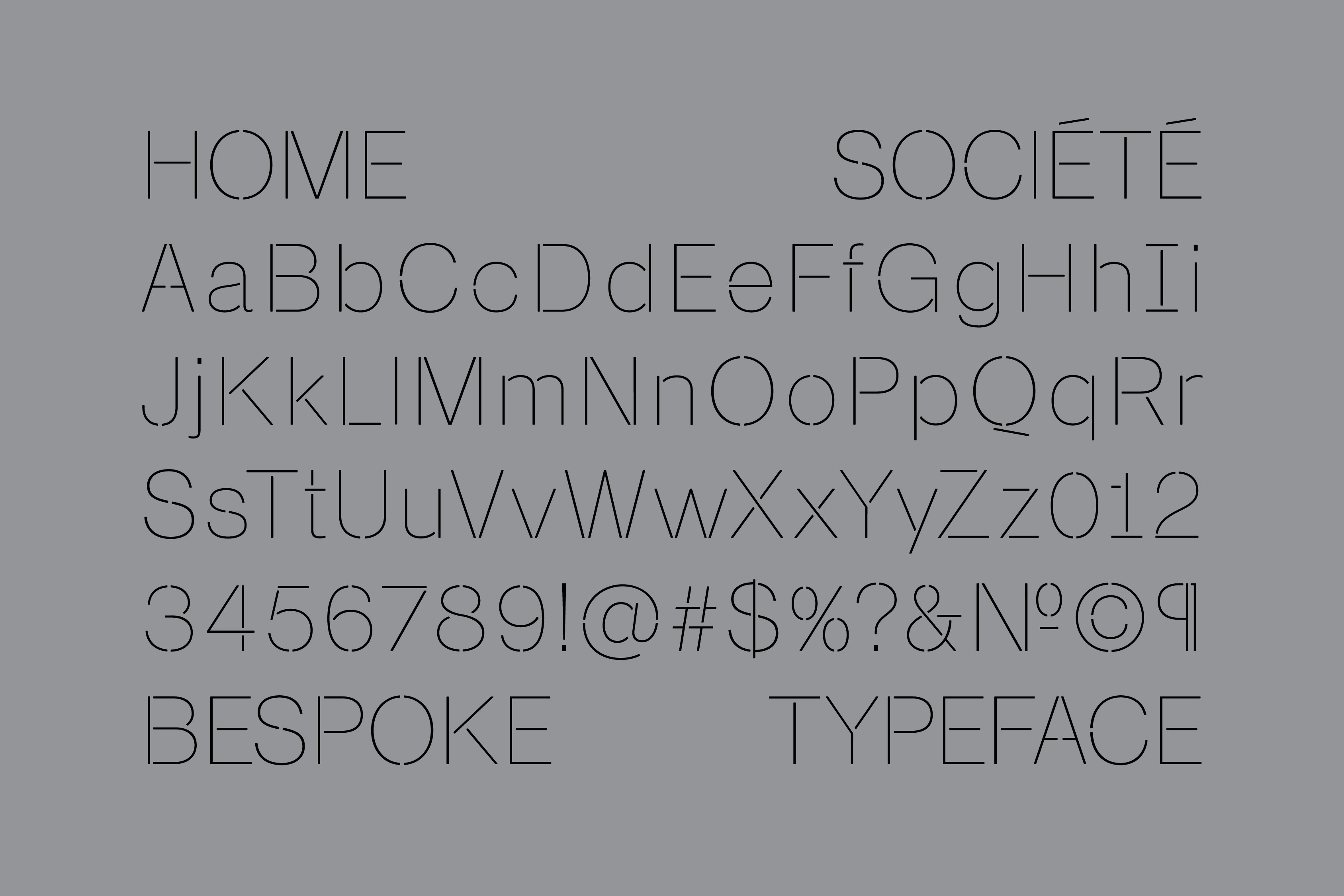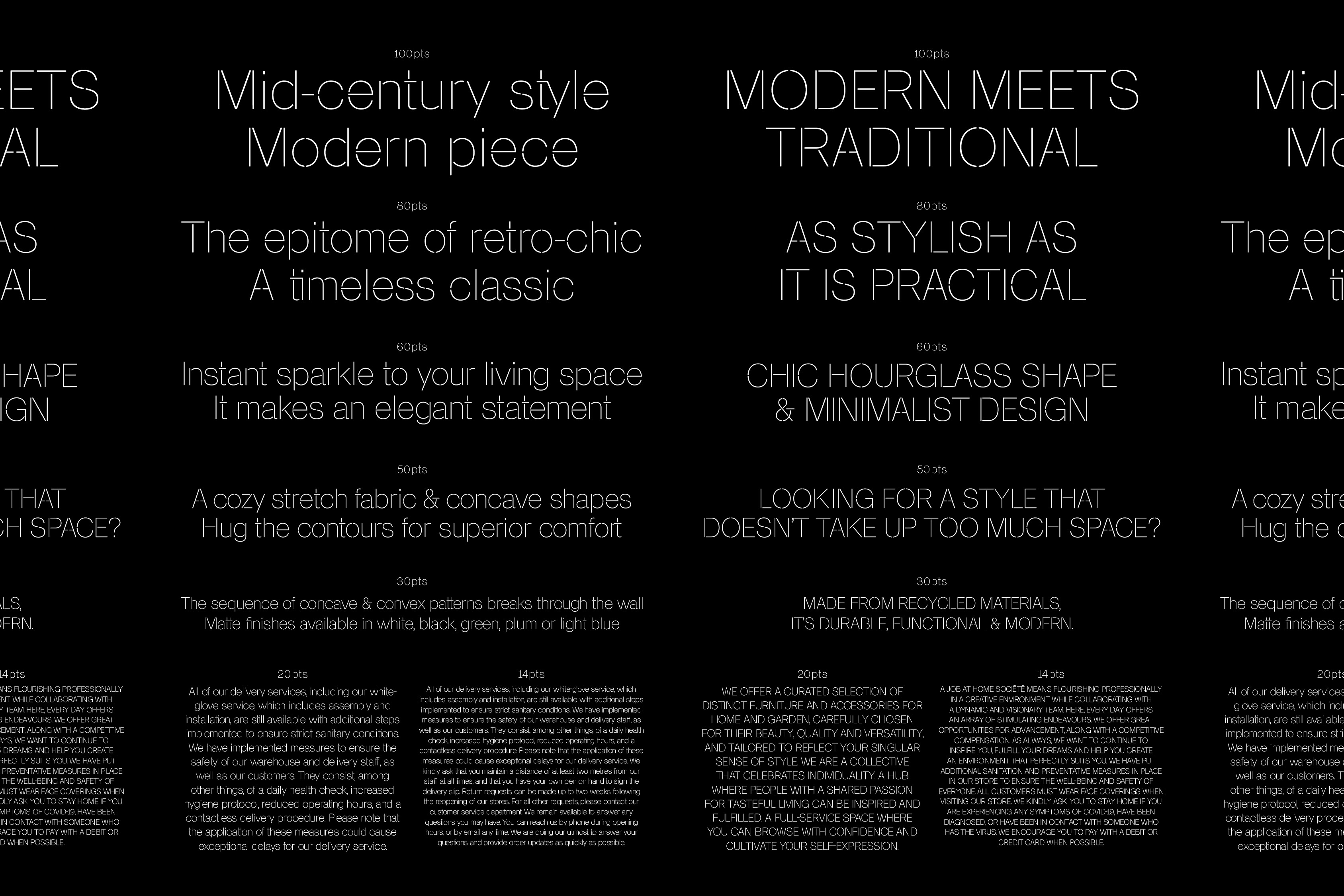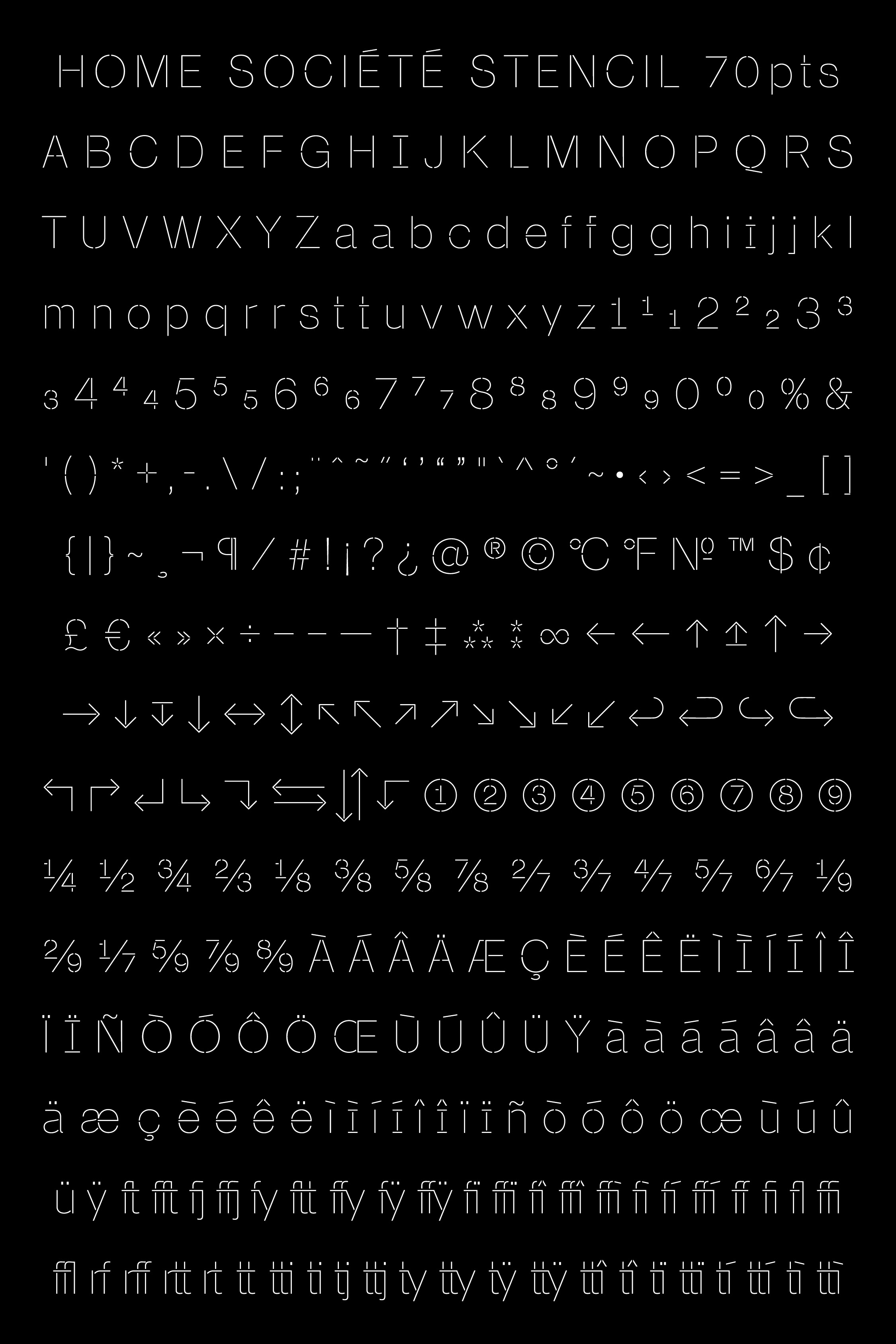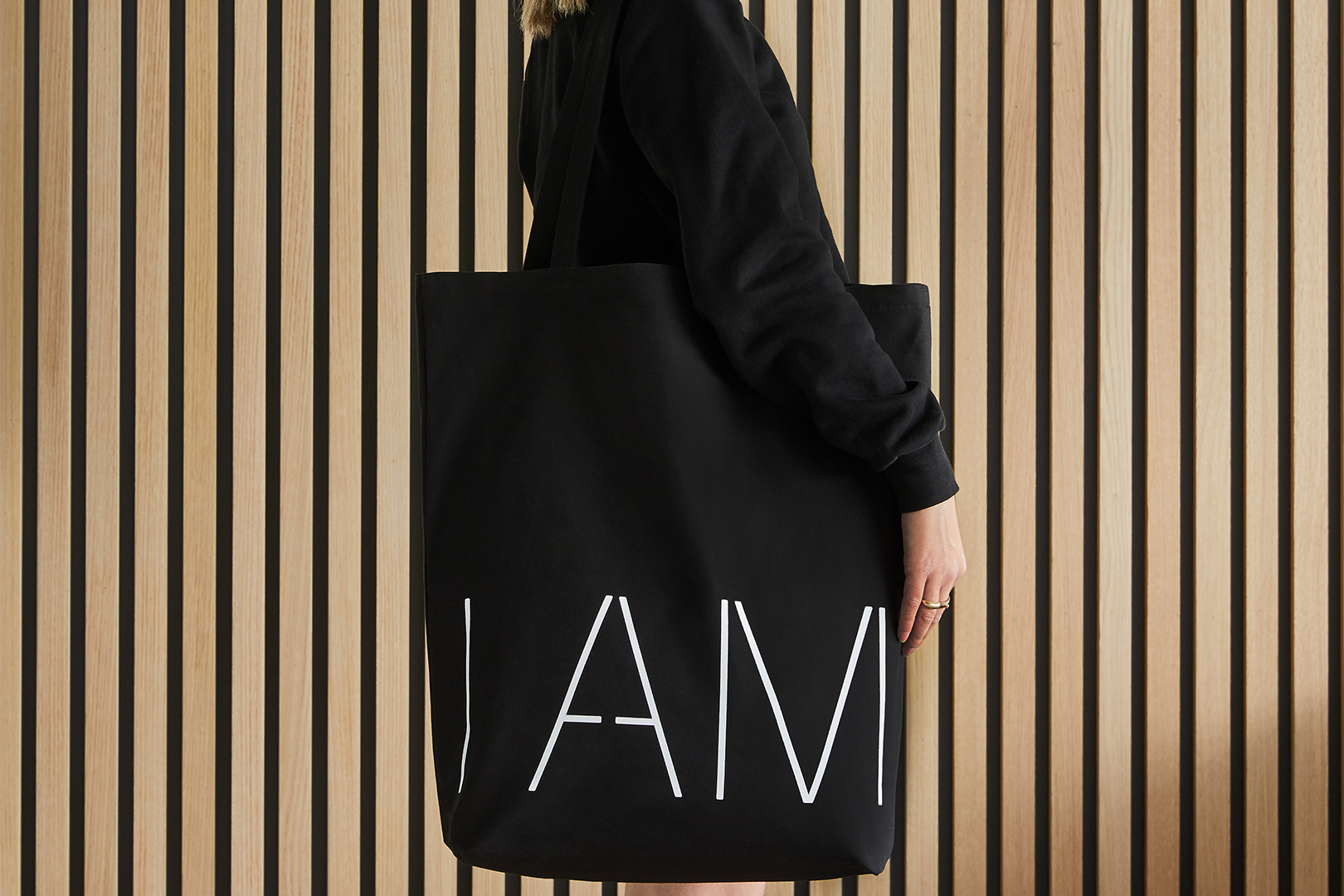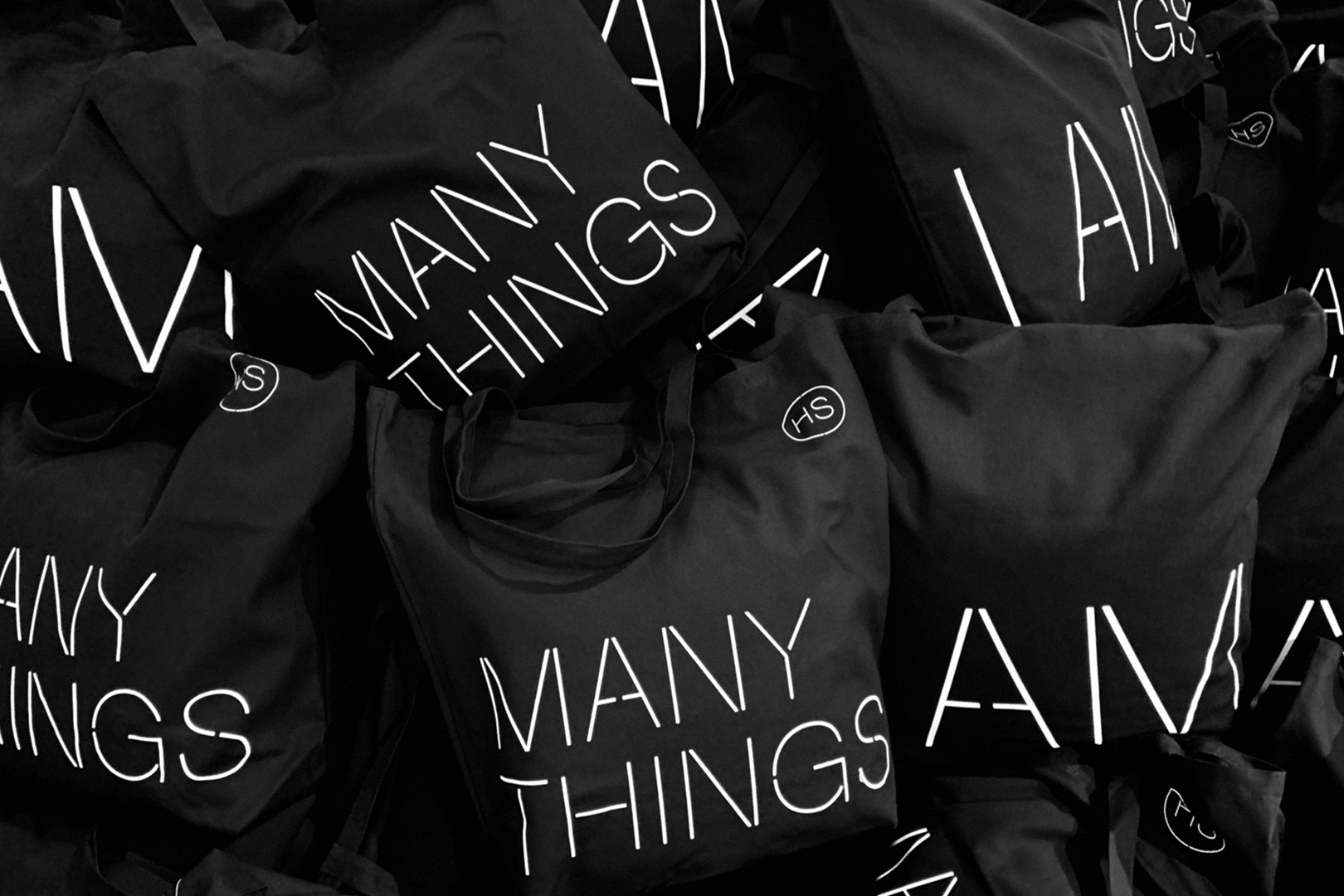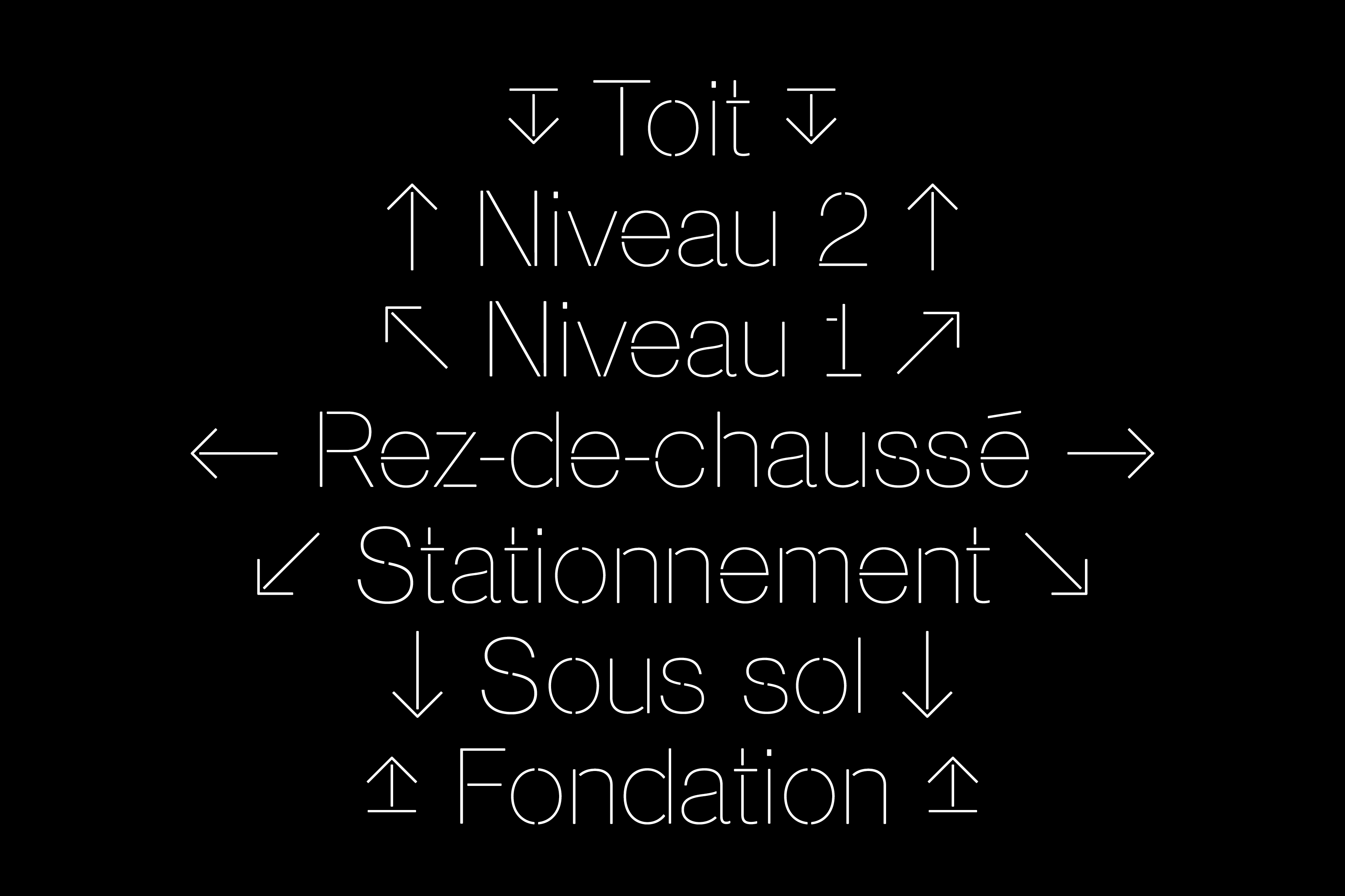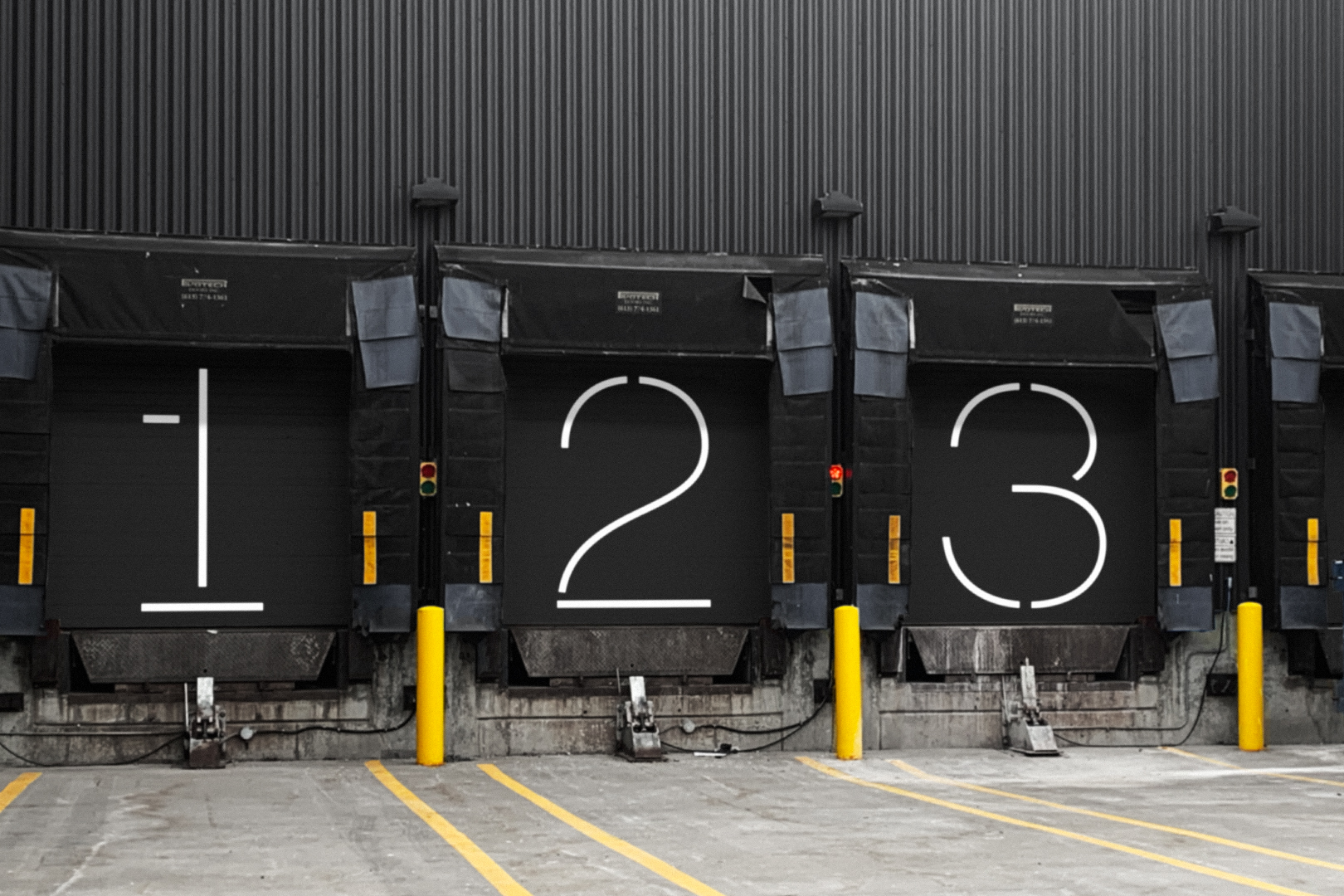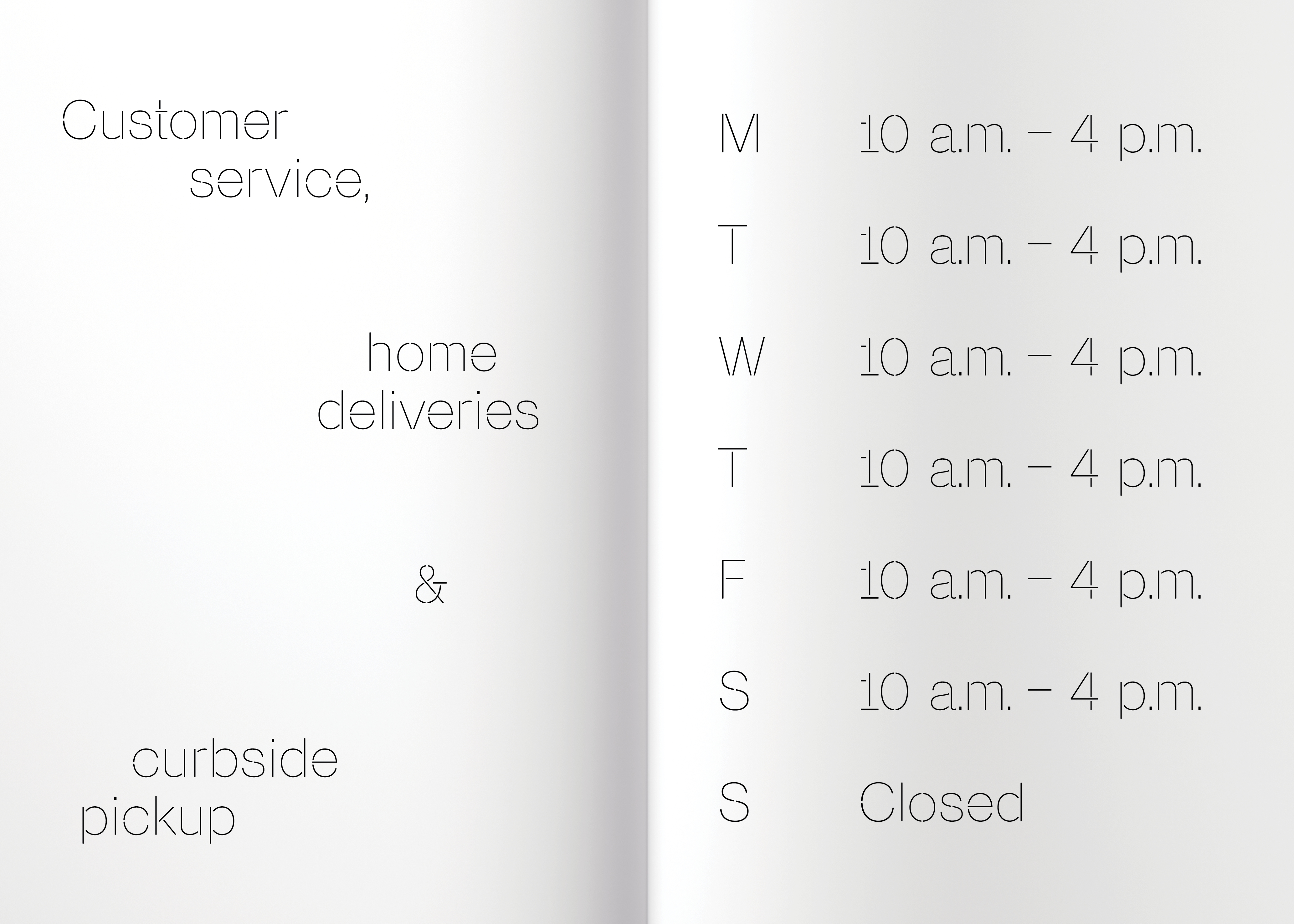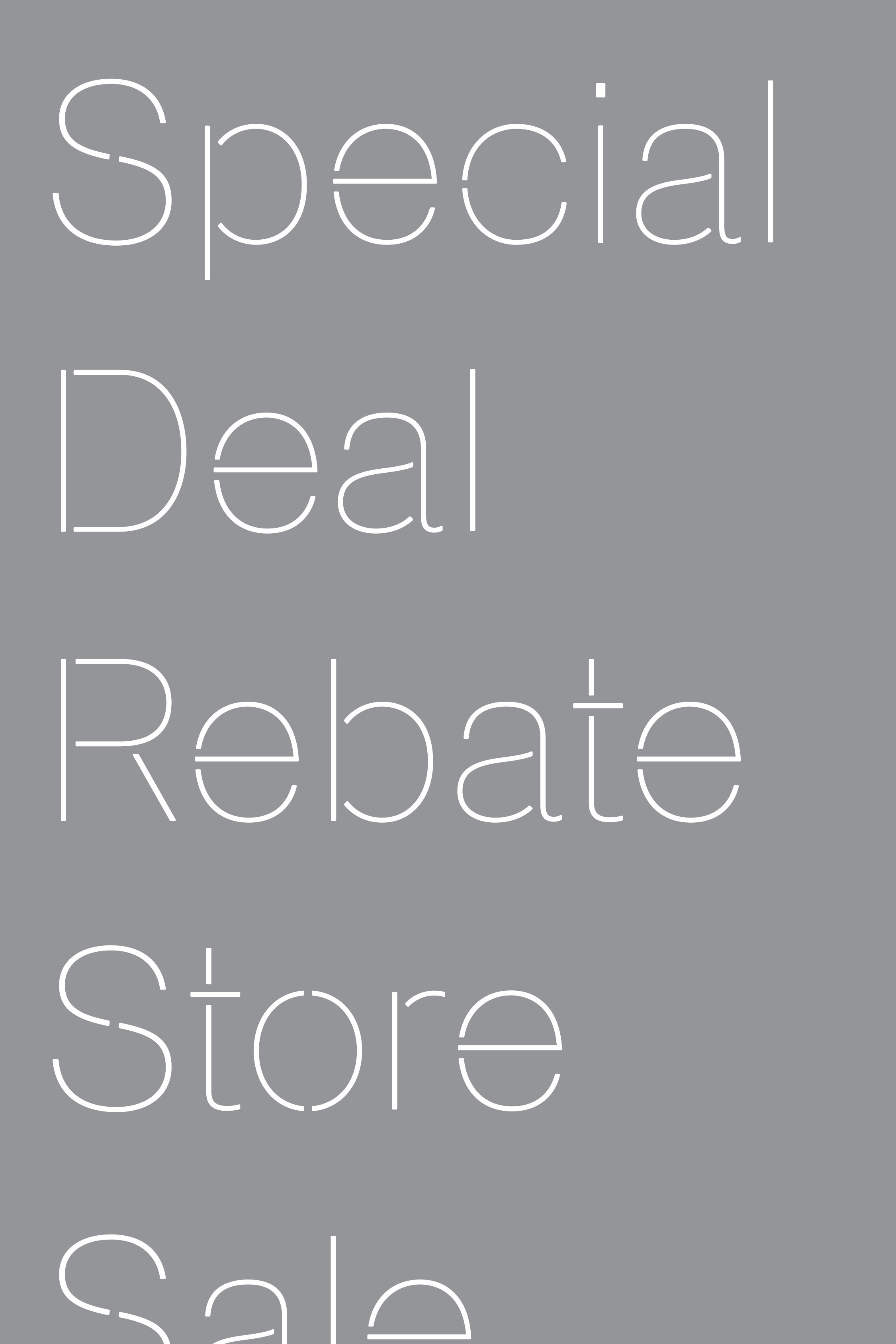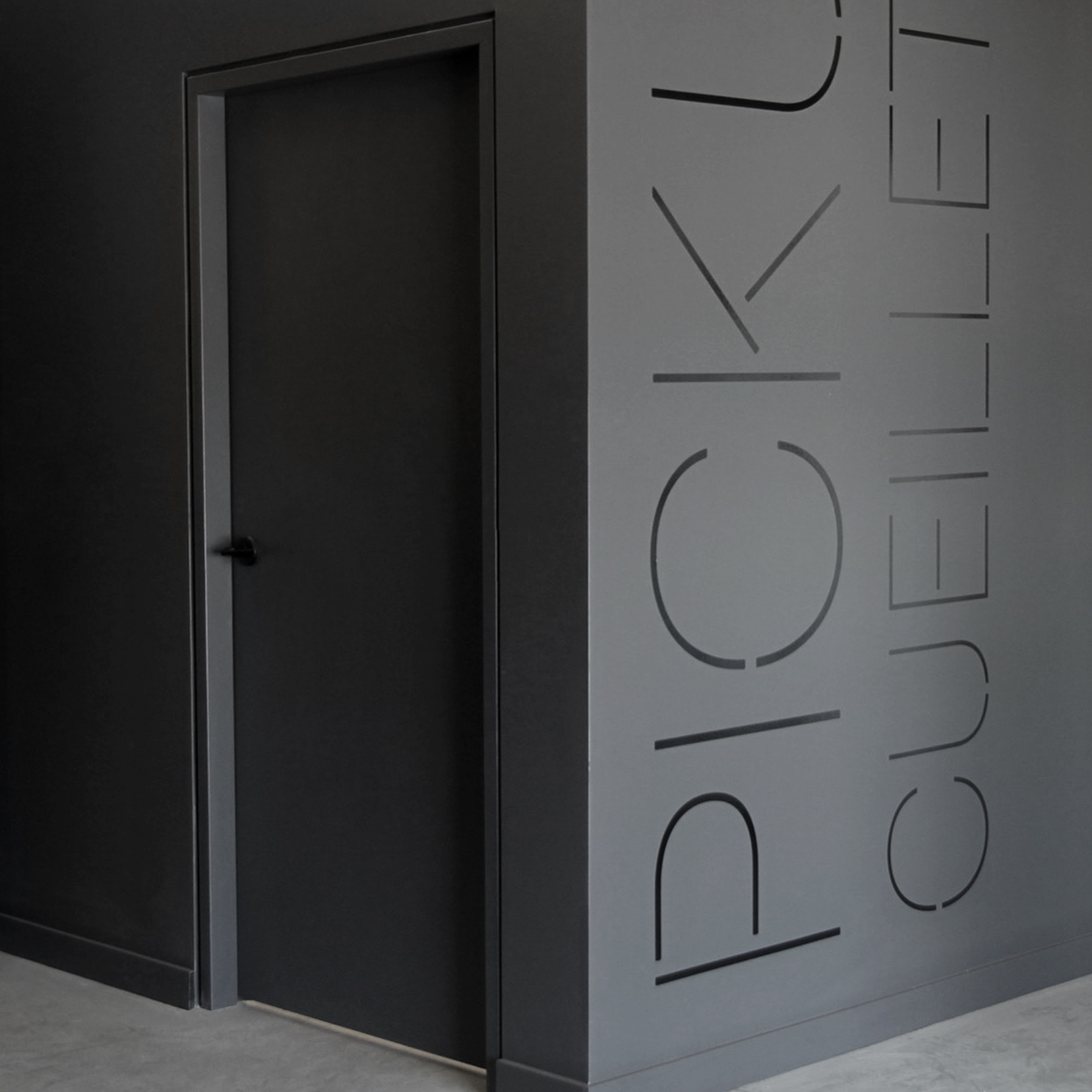
Home Société, a Canadian furniture retailer, showcases an eclectic array of modern and stylish home furnishings, decor, and accessories on their website. Their collection features curated designs crafted to elevate various living spaces including bedrooms, living rooms, dining areas, and offices. With a commitment to quality craftsmanship and trendy designs, Home Société focuses on enhancing homes with chic and practical furniture selections. The stores serves as a showcase of versatile, tasteful pieces tailored to diverse tastes and lifestyles.
We crafted a unique typographic family to solidify Home Société‘s brand identity. This bespoke typeface is an elegant stencil font, deliberately contrasting the industrial aesthetics of the warehouse sized stores while mirroring the sophistication found in its furniture offerings. This typography choice resonates with finesse, adding a refined touch that harmonizes with the brand's ethos and creates a cohesive visual narrative, aligning the company's physical presence with the elegance of its products.